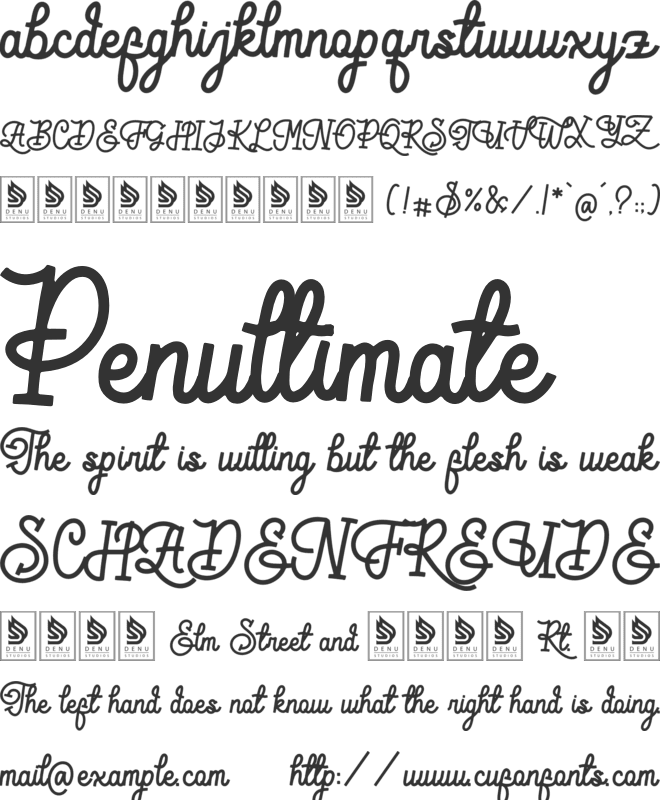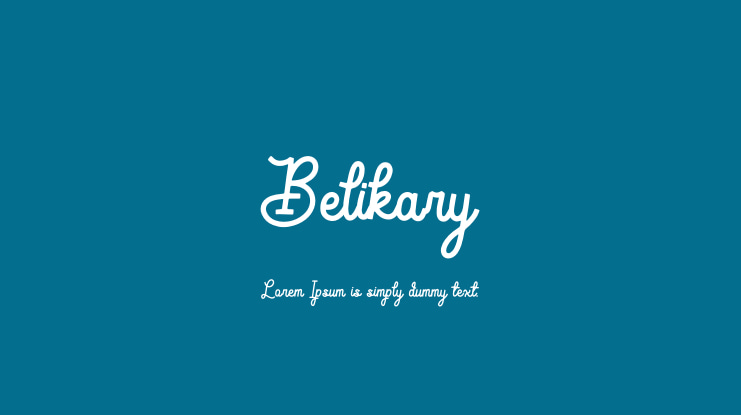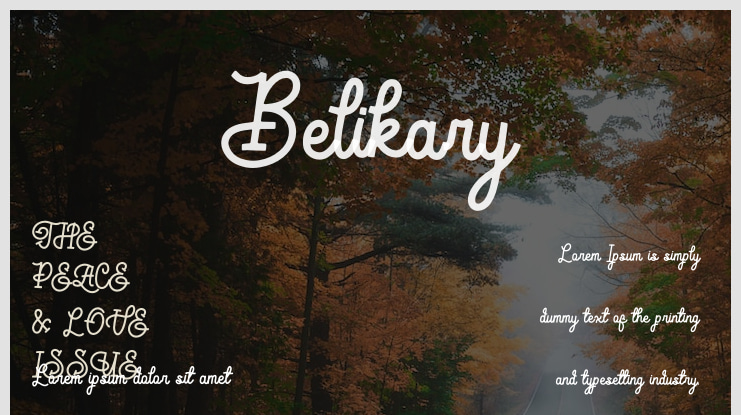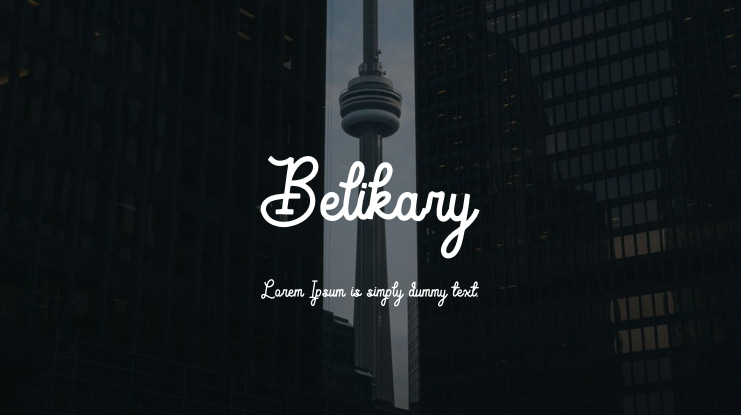
Belikary | Monoline Script is ideal for a variety of projects, including logos, branding campaigns, homeware designs, product packaging, mugs, quotes, posters, shopping bags, t-shirts, book covers, name cards, invitation cards, greeting cards, labels, photography, watermarks, and any special events requiring a touch of Monoline Script.